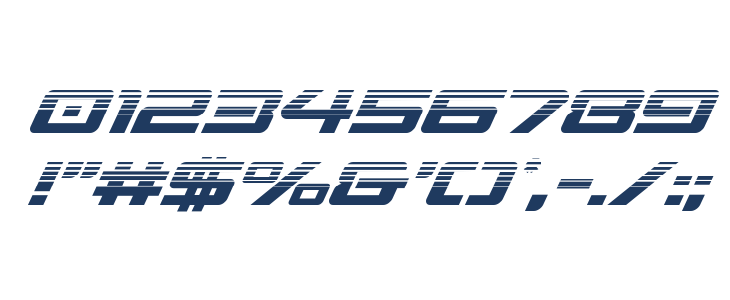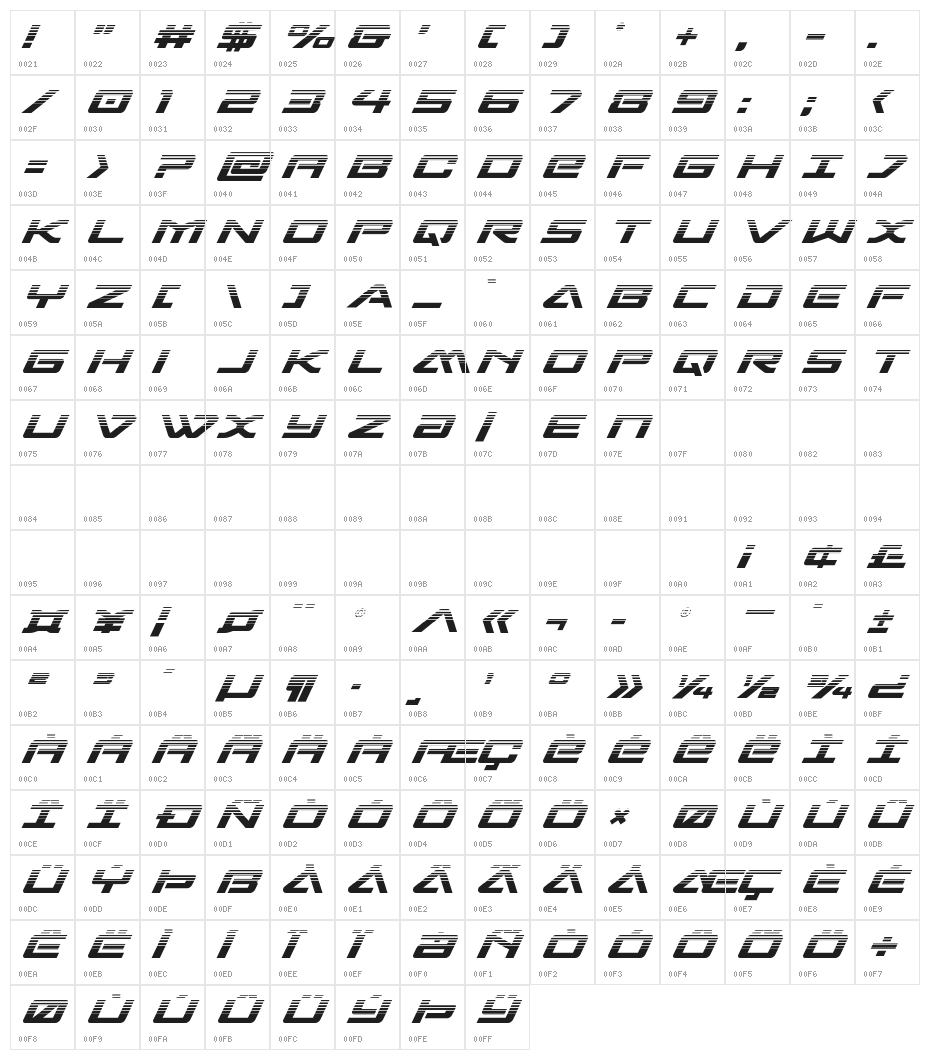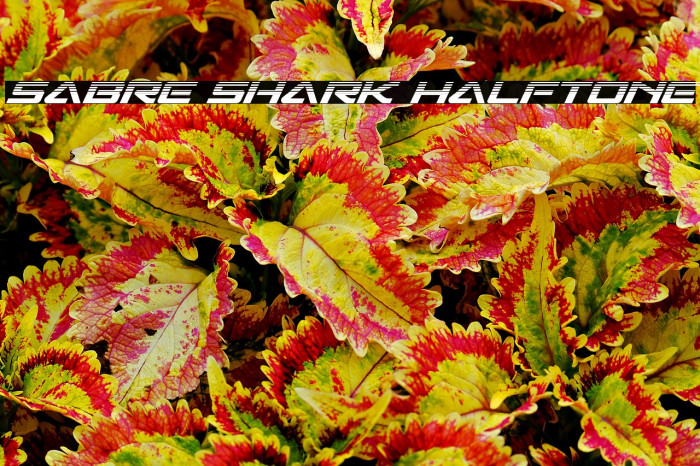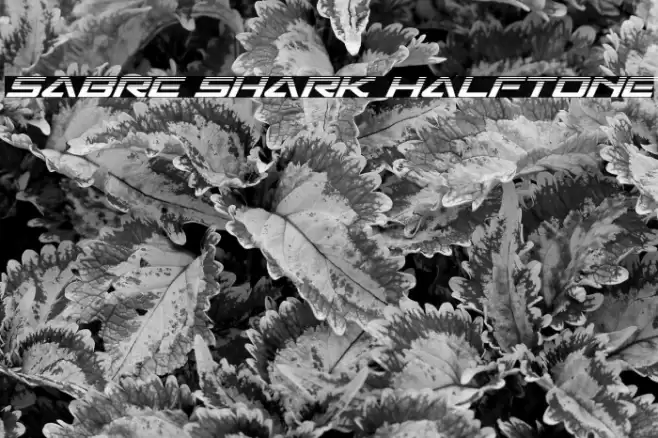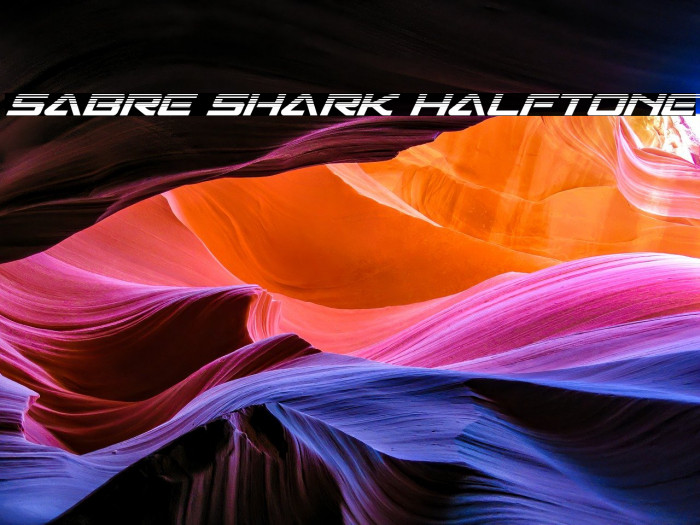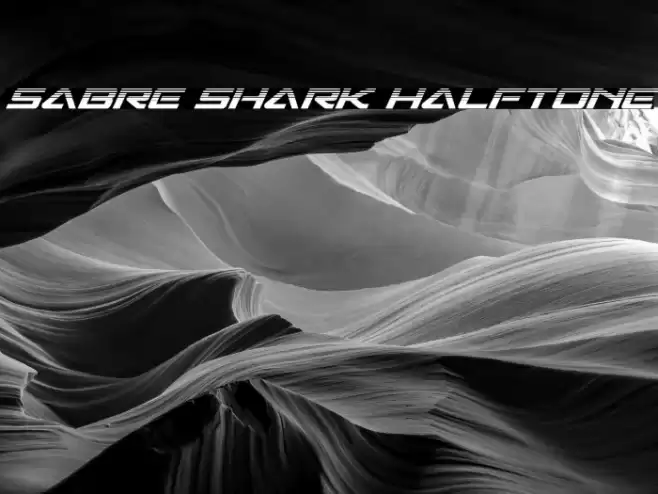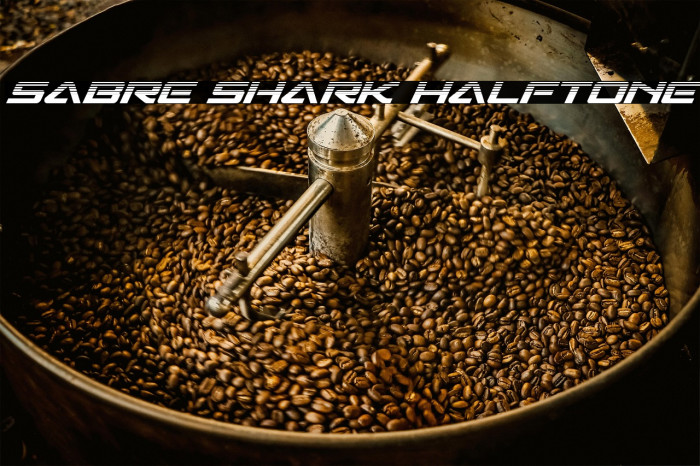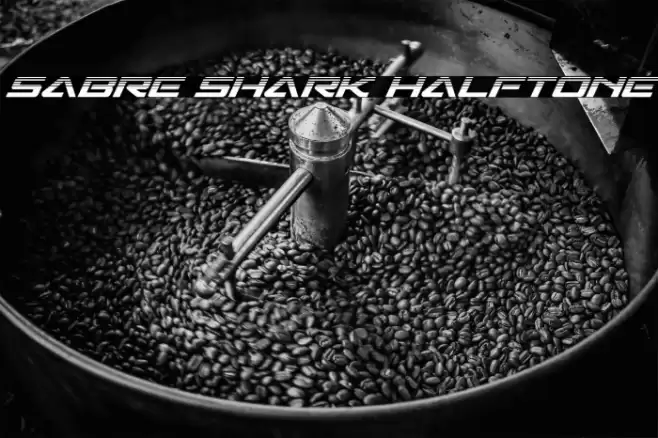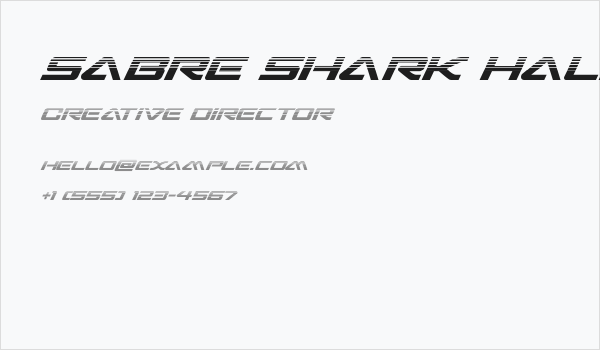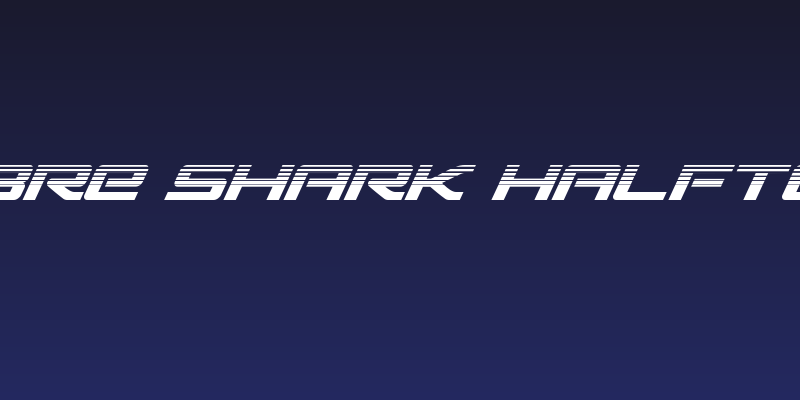
Sabre Shark Halftone Font
Sabre Shark Halftone Description
This font features a bold, futuristic design with a distinct halftone effect that gives it a dynamic and edgy appearance. The characters are constructed with horizontal lines that create a sense of movement and energy. The uppercase and lowercase letters maintain a consistent style, with sharp angles and a geometric structure. The numbers and special characters follow the same design principles, ensuring uniformity across all glyphs. This font is ideal for projects that require a modern and technological aesthetic, such as digital media, video game titles, and tech-related branding.
| Overall Style | Futuristic, Dynamic |
| Use Case | Headlines, Logos, Digital Media |
| Proposed Projects | Ideal for digital media, video game titles, tech branding, and futuristic designs. |